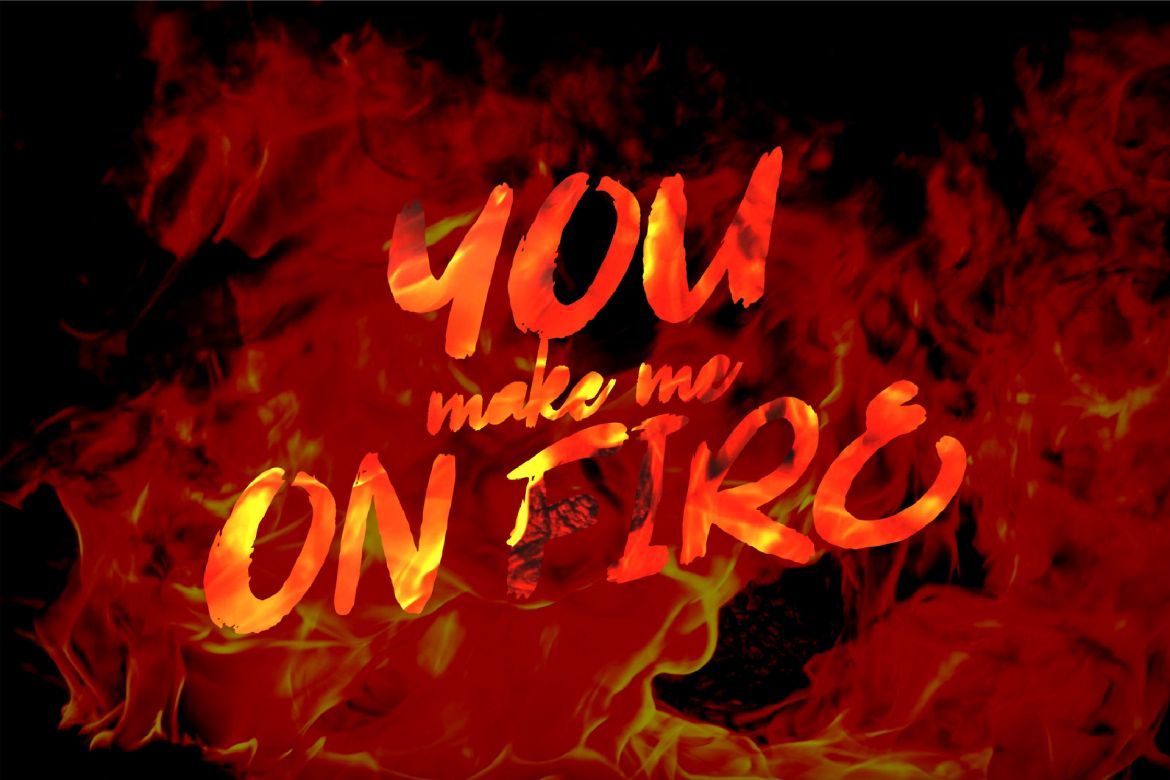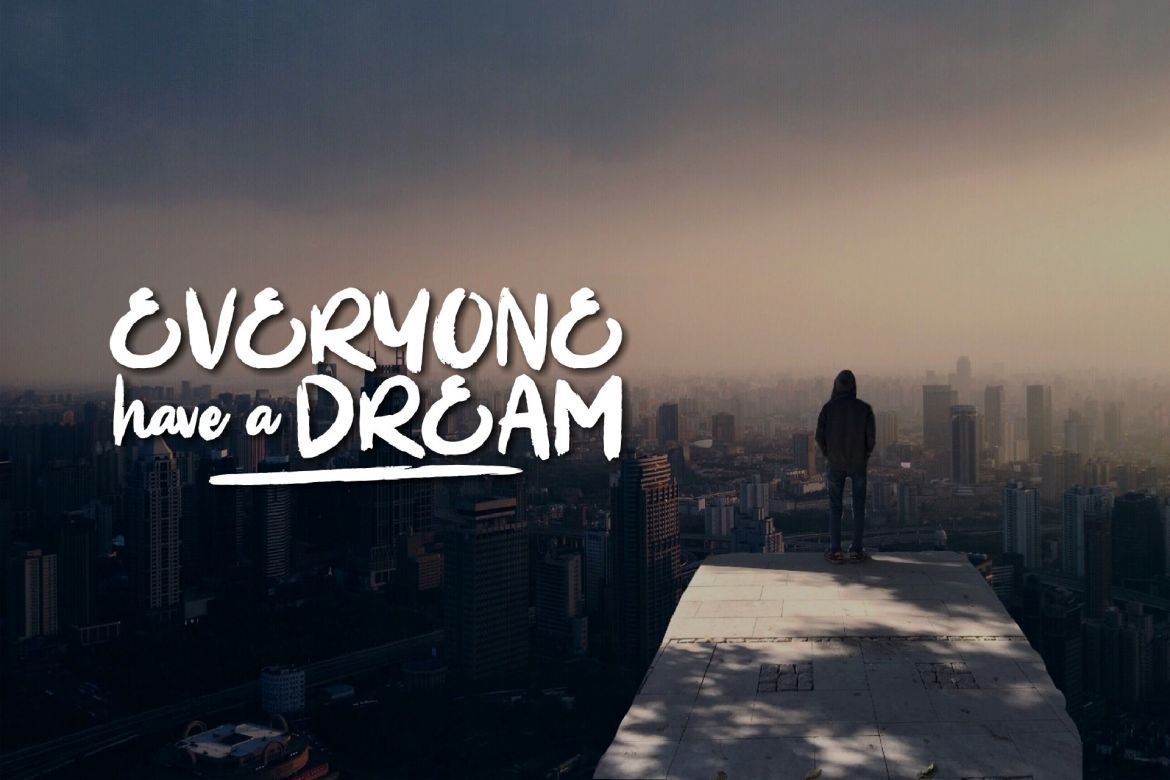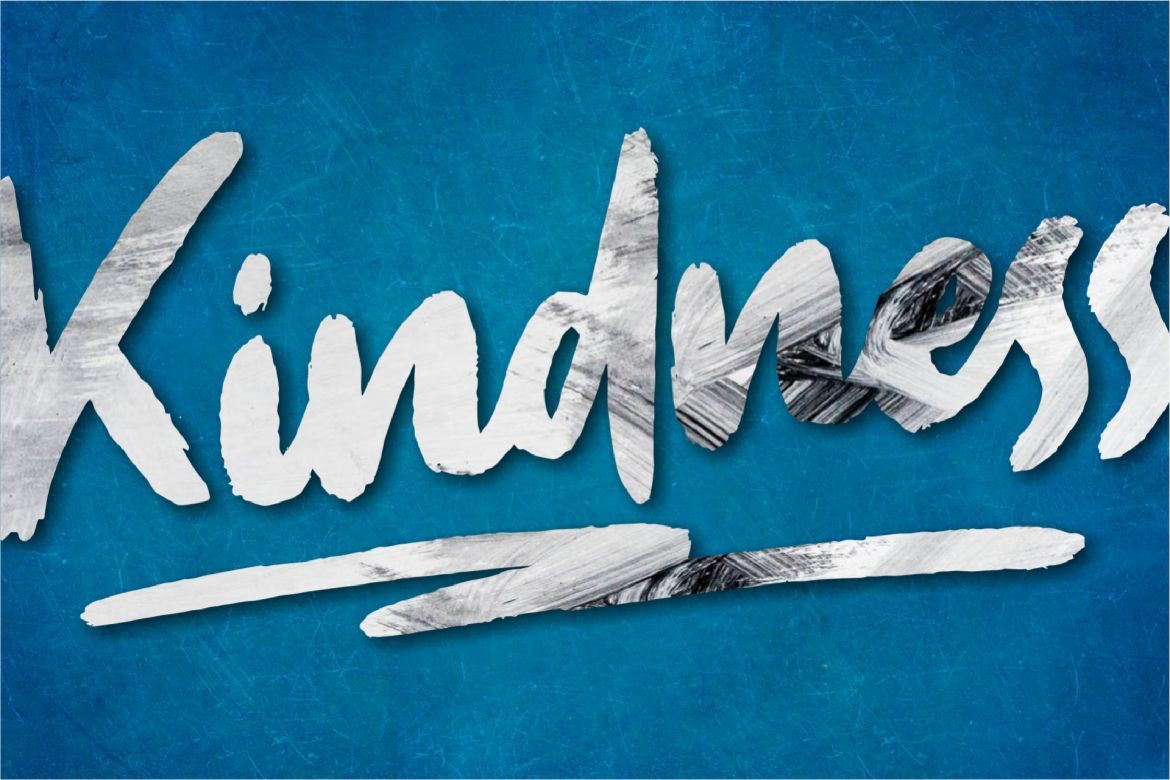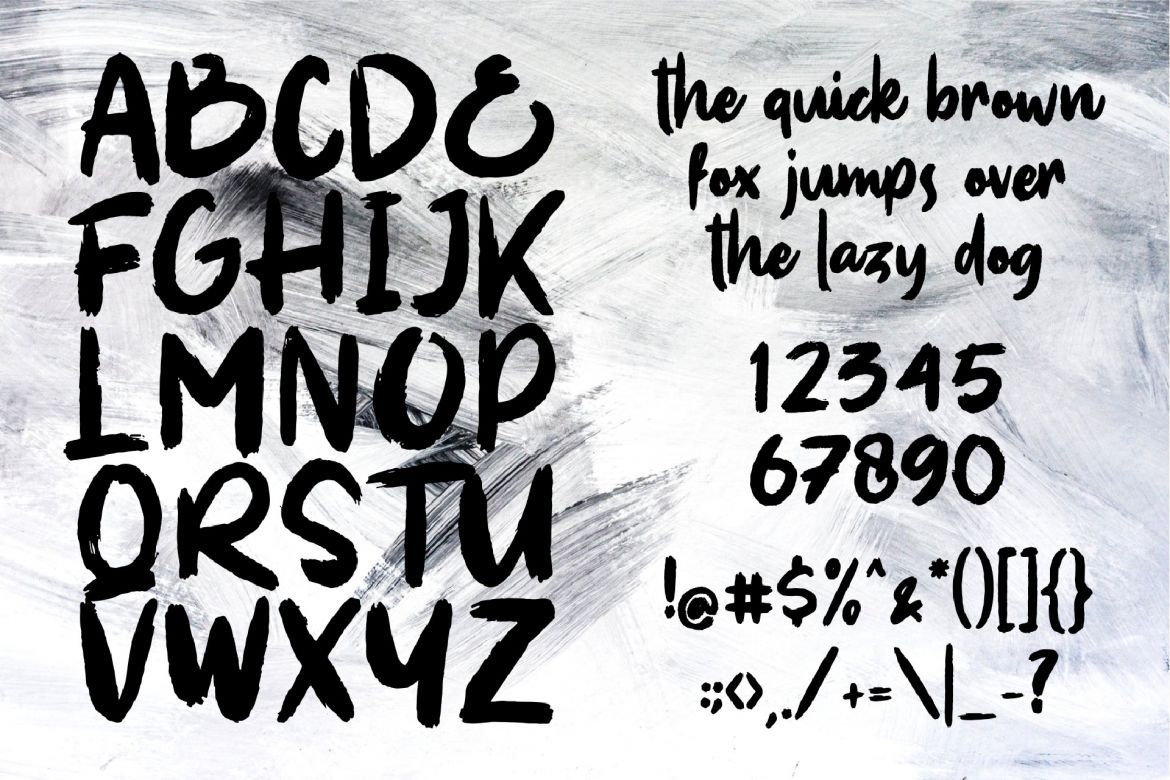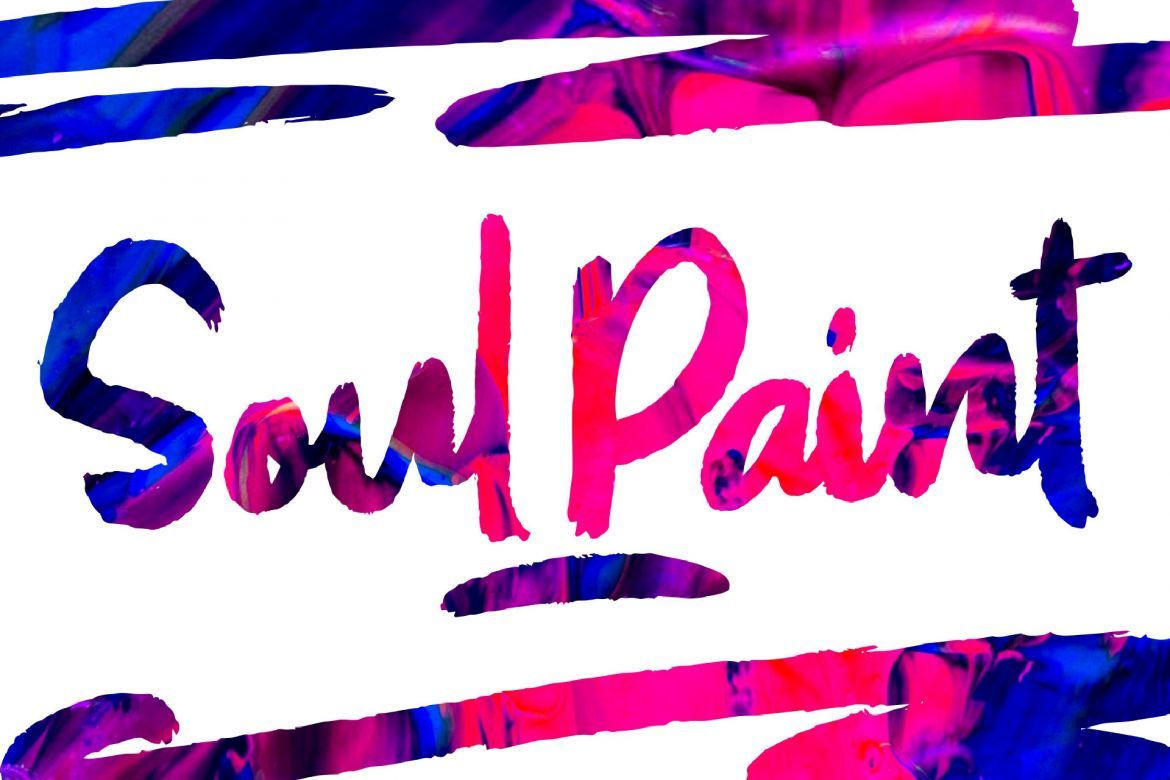
Soul Paint - Handbrush Font
Introducing SOUL PAINT semi script brush font with dry brush style!
SOUL PAINT combines attractive curves with a fresh urban edge; delivering a stylish script which is guaranteed to add an eye-catching appeal to your logo designs, brand imagery, handwritten quotes, product packaging, merchandise & social media posts
• extra swash
• multilingual support for 19 language